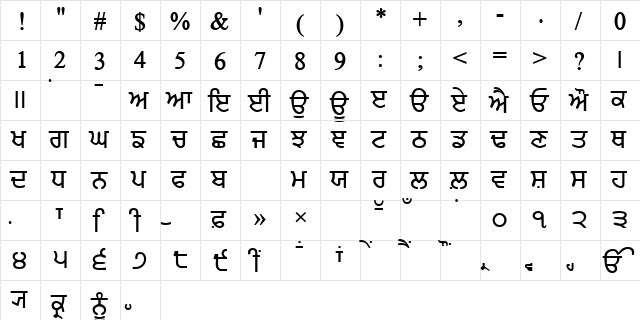
PunjabiAmritsarSSK Bold
Design Context for PunjabiAmritsarSSK Typeface
PunjabiAmritsarSSK offers clean, dependable letterforms without strong stylistic allegiance, making it a practical choice for designers who need flexibility. Its bold stroke weight gives it real presence on the page.